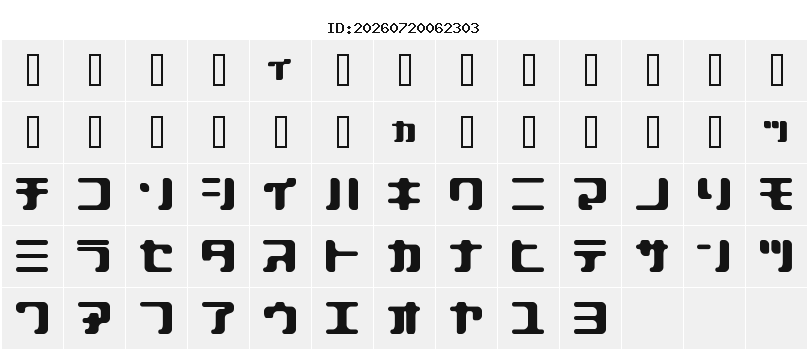
• Font Name: EOPla￿a
• Font Style: ka￿akana
• Full Font Name: EOPla￿a ka￿akana
About EOPla￿a.ttf
EOPla￿a.ttf is a modern, elegant sans-serif font designed for ultimate readability and visual harmony. Perfect for branding, headlines, web design, and print materials.